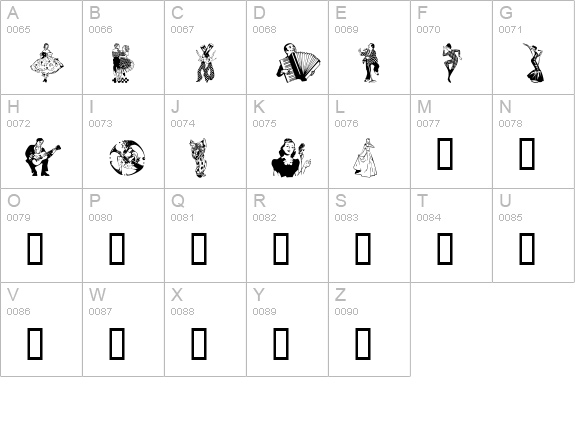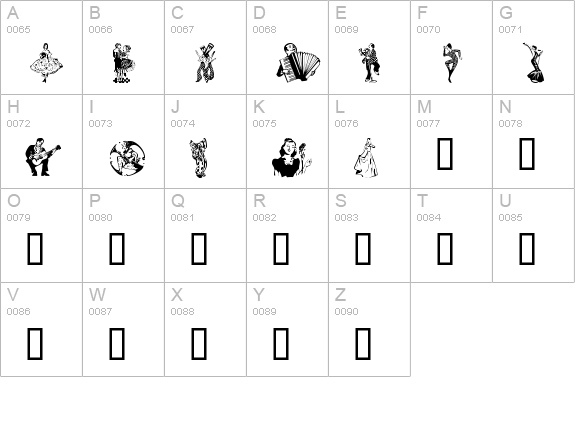
Entertainment 1 Font Details
Entertainment 1 font is a stunning display typeface that exudes a sense of fun and excitement. With its bold, eye-catching design and playful curves, this font is perfect for adding a touch of flair to any project. Whether you're designing posters, flyers, or social media graphics, Entertainment 1 font is sure to make a statement. What's even better is that Entertainment 1 font is completely free to download at FontsMarket.com. Yes, you read that right - you can add this fantastic font to your collection without spending a dime. So why wait? Head over to FontsMarket.com now and elevate your designs with the captivating Entertainment 1 font.